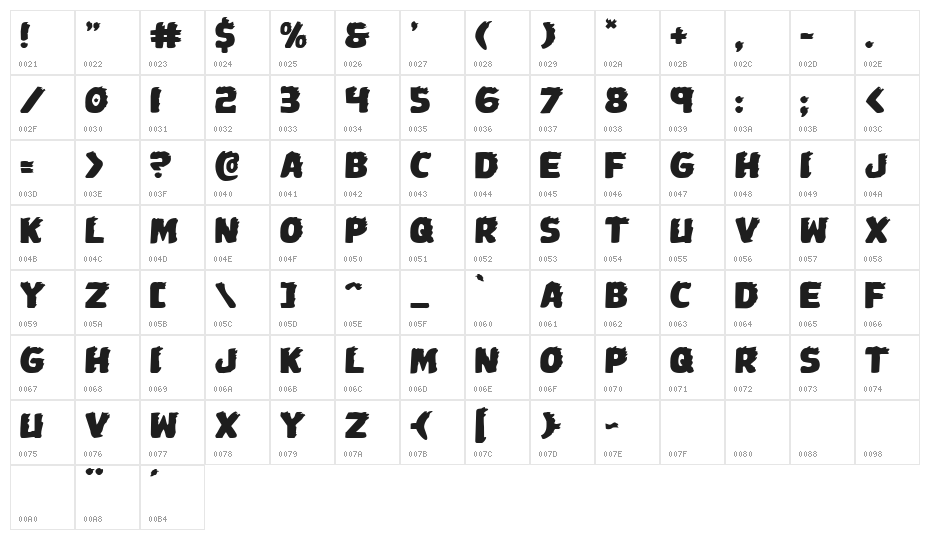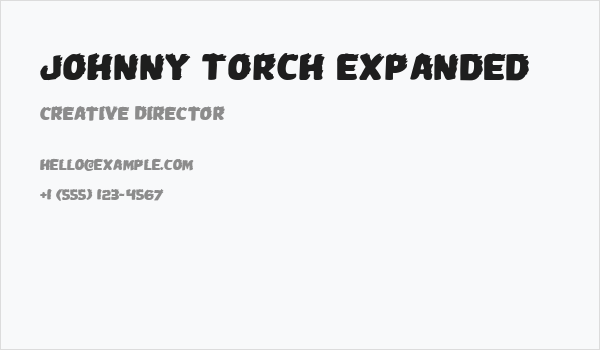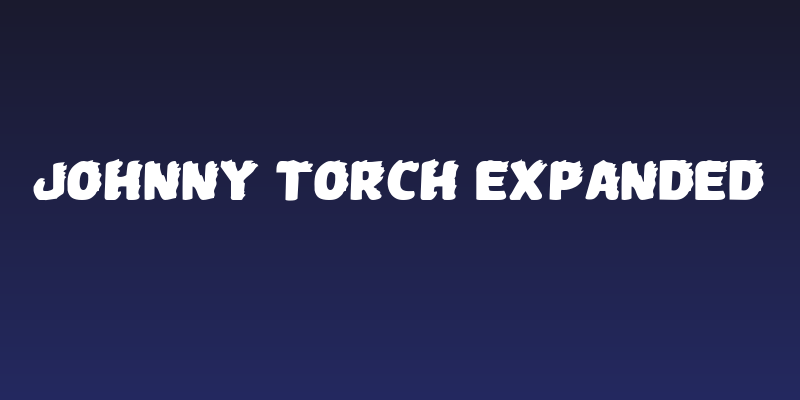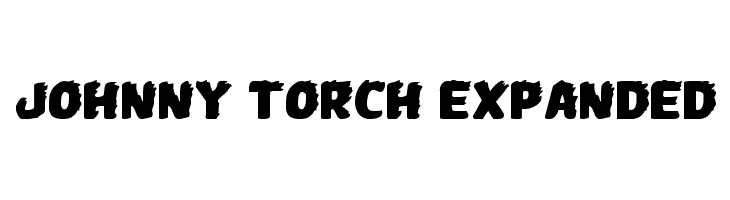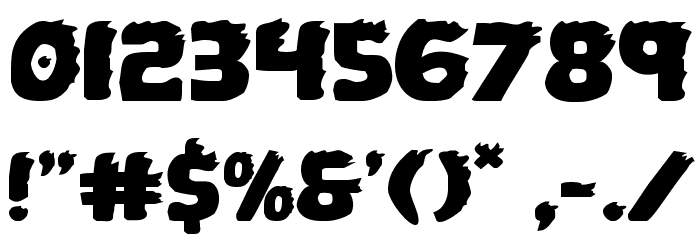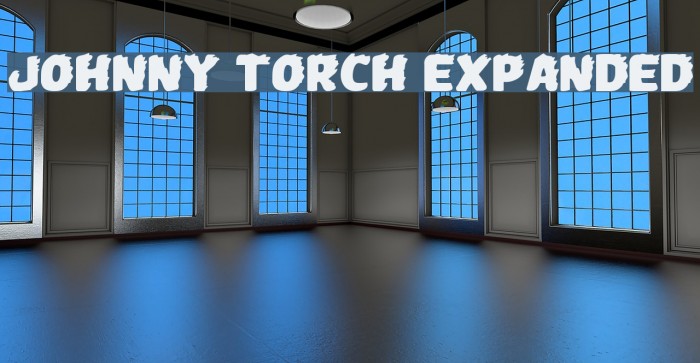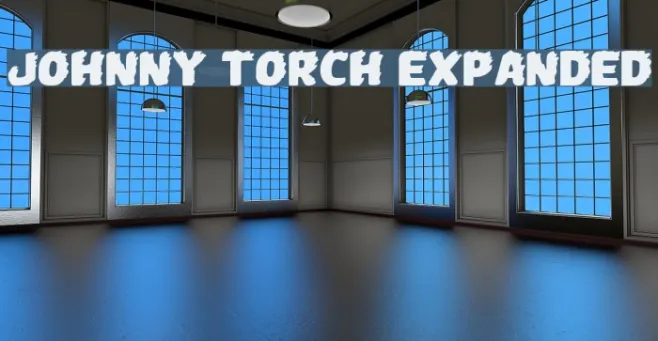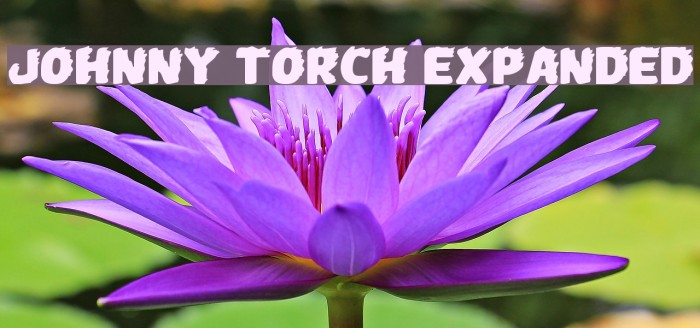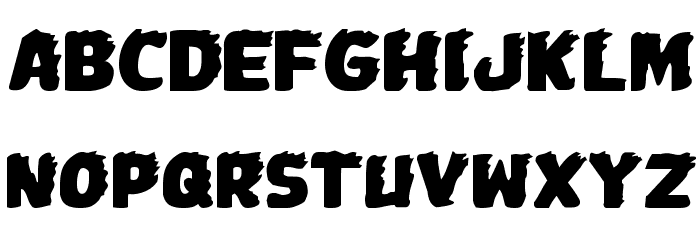
Johnny Torch Expanded Font
Johnny Torch Expanded Description
This font features a bold and dynamic style with a rugged, flame-like texture that gives it a fiery appearance. The characters are thick and heavy, with irregular edges that create a sense of movement and energy. The uppercase and lowercase letters maintain a consistent weight, contributing to a cohesive look. The numbers and special characters follow the same design principles, ensuring uniformity across all glyphs. This font's unique style is eye-catching and memorable, making it suitable for projects that require a strong visual impact.
| Proposed Projects | Ideal for use in posters, logos, video game graphics, and any project needing a bold, energetic typeface. |